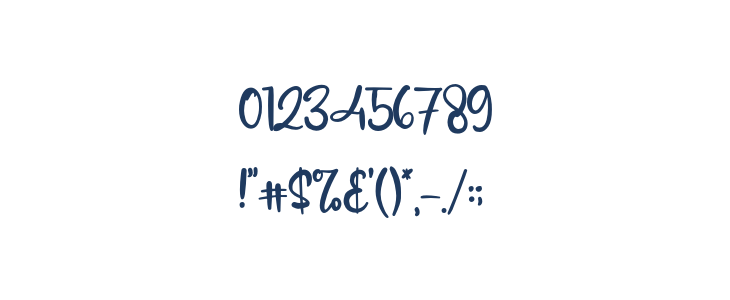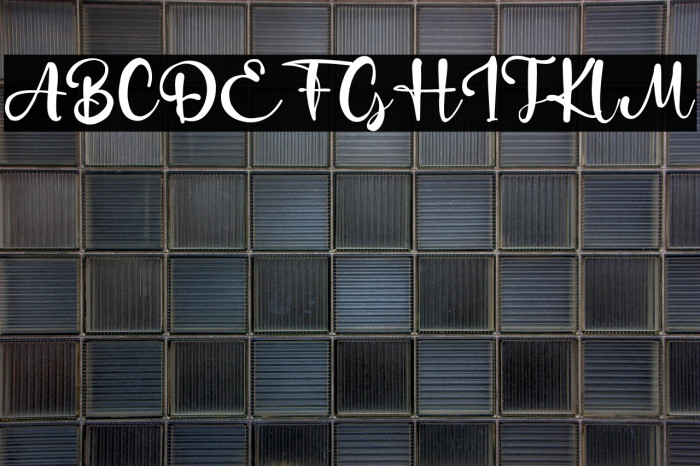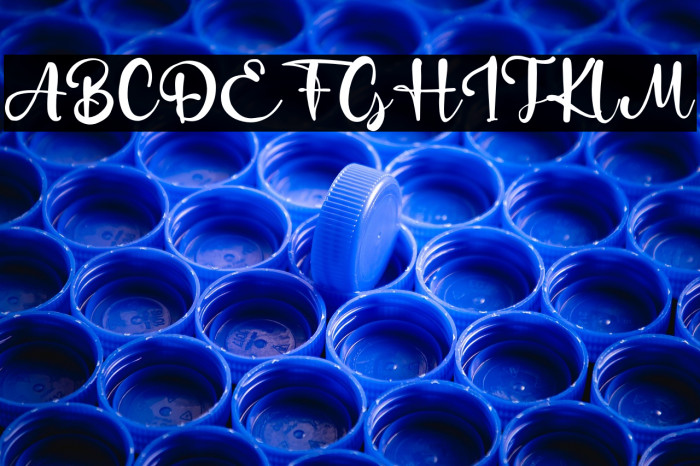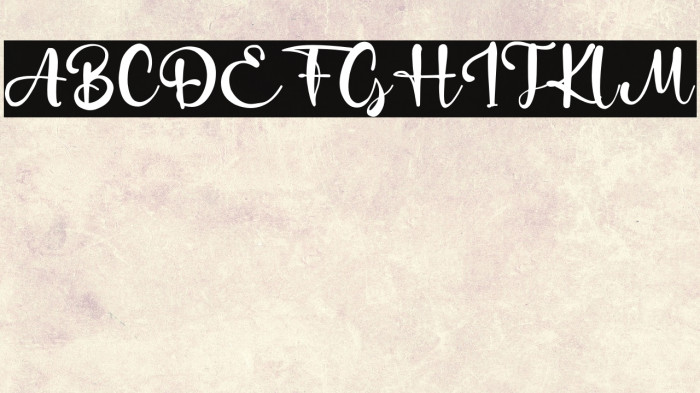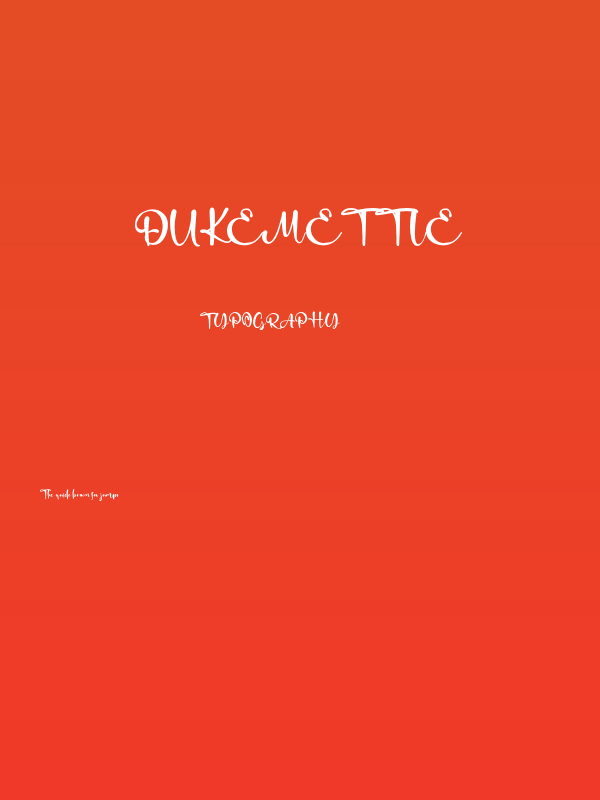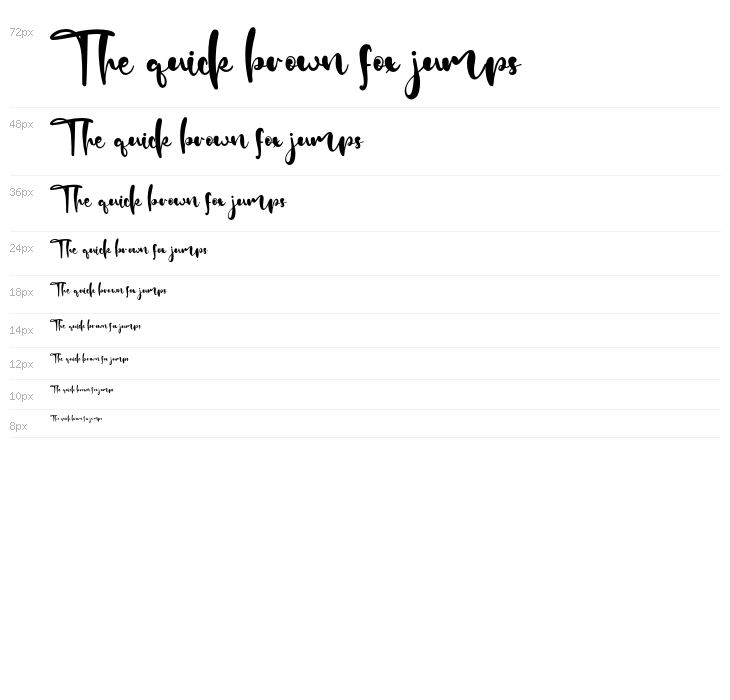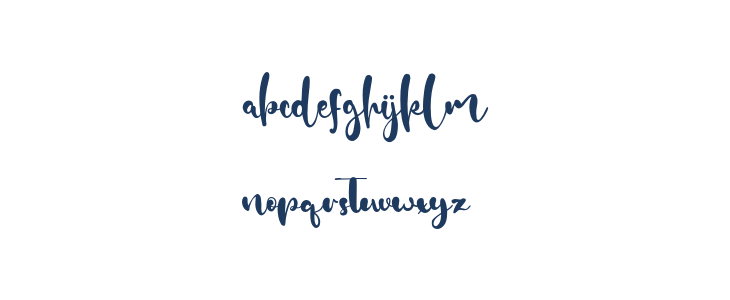
DukeMettle Font
DukeMettle Description
This font features a lively and expressive script style with a handwritten appearance. The uppercase letters are bold and dynamic, with sweeping curves and flourishes that add a sense of movement and elegance. The lowercase letters maintain a consistent flow, with some characters featuring unique loops and swashes that enhance the font's playful nature. Numbers are rounded and maintain the same energetic style, making them stand out. The special characters are creatively designed, fitting seamlessly with the overall aesthetic. This font is perfect for projects that require a personal touch, such as invitations, greeting cards, or branding materials.
| Use Case | Logos, Headlines, Invitations |
| Proposed Projects | Ideal for invitations, greeting cards, branding, and any project needing a personal touch. |